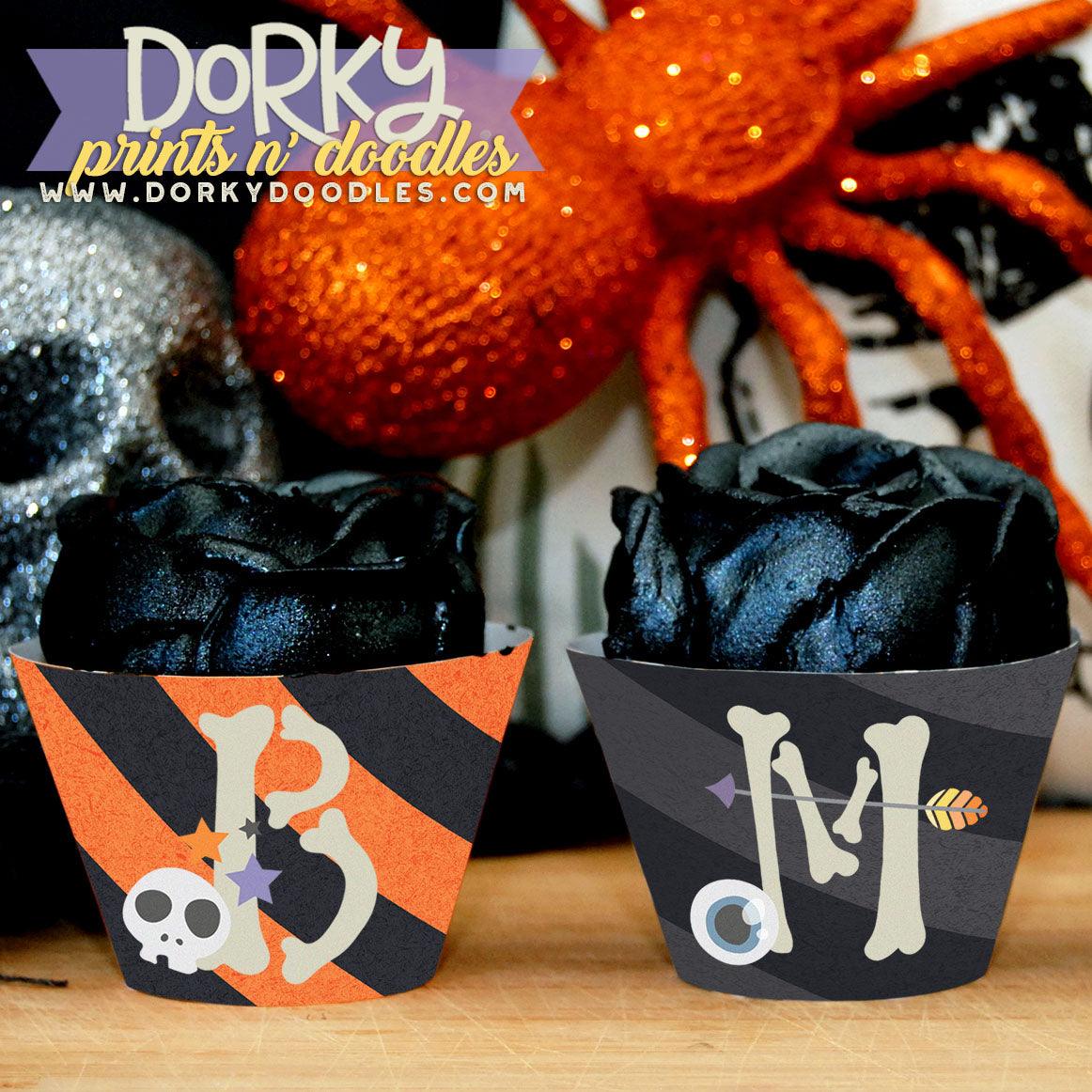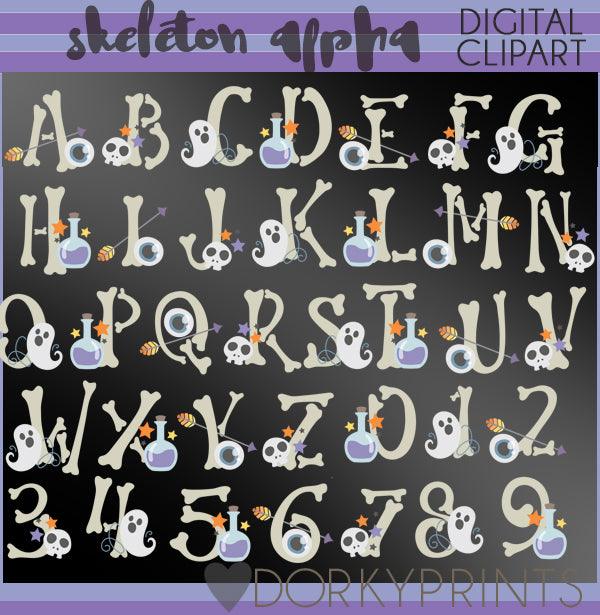
Skeleton Font and Symbols Clipart
These cute skeleton, eyes, and bones letter and number images look fabulous in scrapbooks, party invitations, and holiday decor! You will get 36 Digital Clip Art images in high resolution PNG format (they come as a ZIP file that you can download instantly once payment has cleared).